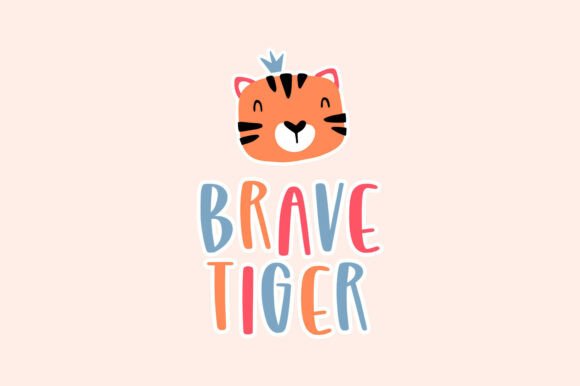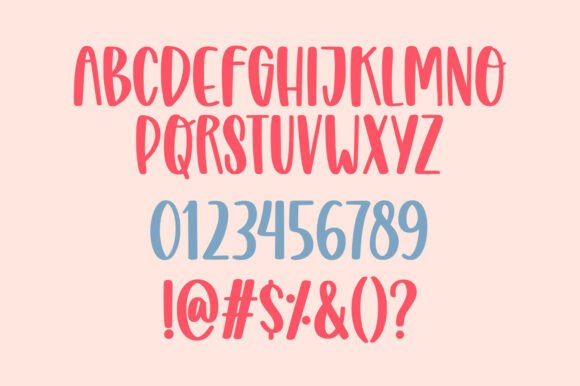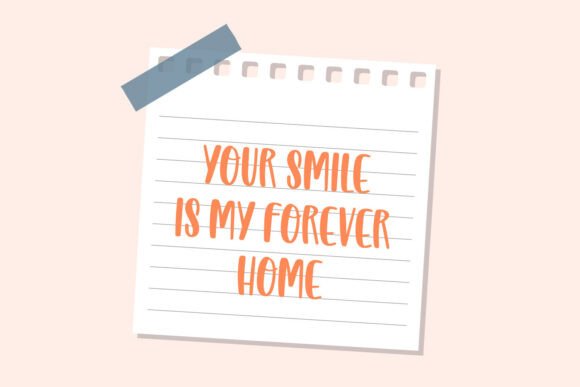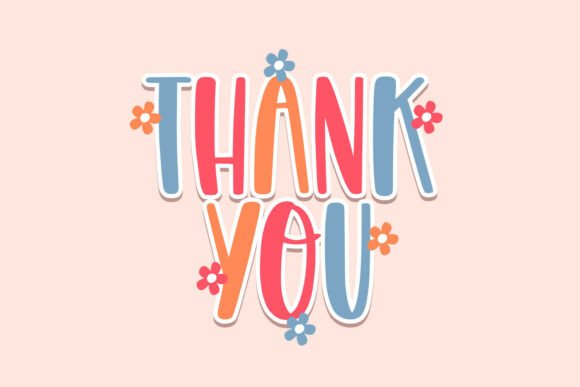
Introduction to Normils Choice Font
Have you ever been brainstorming ideas for a creative project, and suddenly a burst of color and energy sparks your imagination? That’s exactly what happens when you meet the Normils Choice Font, a vibrant and joyful typeface designed to spread happiness in every letterform. As designers, we’re always on the lookout for the perfect design resource to elevate our work, and this font is sure to be a game-changer.
With its playful moments, bright confetti, and freedom of creative expression, the Normils Choice Font is the perfect companion for any design project. Whether you’re working on a branding project, creating packaging for a new product, or designing social media graphics, this font brings energy and warmth to every character. And the best part? It’s available for a free download, making it an accessible design resource for designers of all levels.
From its soft curves to its balanced proportions and lively details, the Normils Choice Font is carefully crafted to create a friendly and approachable personality that’s sure to resonate with your audience. Plus, with a transparent background option, you can easily integrate it into your high-quality design projects, whether it’s a children’s product, a poster, or a cheerful event theme. Get ready to unleash your creativity with the Normils Choice Font!
Key Features of Normils Choice Font
- Features a large character set, including uppercase and lowercase letters, numbers, and punctuation marks, making it suitable for a variety of creative projects.
- Unique characteristics include a distinctive, hand-drawn feel and a wide range of stylistic variations, making it an excellent choice for designers seeking a one-of-a-kind design resource.
Honest Review: Normils Choice Font
I recently came across the Normils Choice Font, and I was intrigued by its unique design. As a designer, I’m always on the lookout for new and exciting design resources to elevate my creative projects.
Here are some things that work well with the Normils Choice Font:
- ✨ The font has a high-quality, elegant feel that’s perfect for sophisticated designs.
- ✨ The transparent background makes it easy to layer over images and other design elements.
However, I do have some reservations:
- ⚠️ The font is not as versatile as I’d like, with limited styles and weights.
- ⚠️ It may not be suitable for projects that require a more playful or whimsical tone.
Overall, I think the Normils Choice Font is a solid choice for designers looking for a high-quality, elegant font. While it may not be the most versatile option, it’s a great resource for creative projects that require a sophisticated touch.